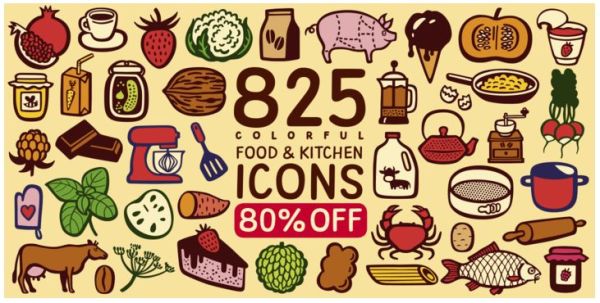
Font Frenzy: Mr Foodie Font Family
Mr Foodie is a set of 825 icons divided into 7 groups:
109 fruit icons,
157 kitchen icons,
120 animal products icons,
100 veggie icons,
107 desserts icons,
127 beverages icons,
105 other food related icons.
It’s a multilayer font so every group consists of 4 fonts – Regular, Back, Front, and 3rd Color. The Regular style is for single color use only and the Back, Front, and 3rd Color styles are necessary if you want to achieve a multicolor effect.
Position three identical text boxes exactly on top of each other, apply layer font styles, and choose whatever colors you like. You’ll quickly discover that some icons don’t have 3rd Color style. This is not a mistake – a lot of things look good with just two colors.
Use it to make logos, illustrations, games, app icons, t-shirts, mugs, cooking books, restaurant menus, interior decorations, invitations, balloons, and any other project where fine crafted food drawing is needed.